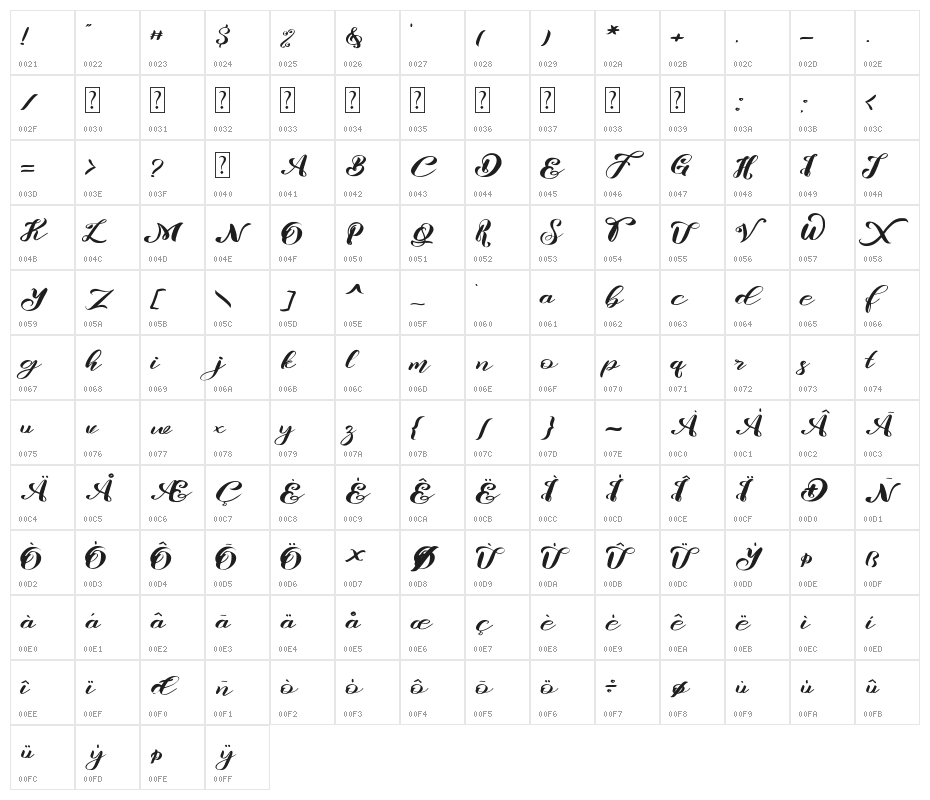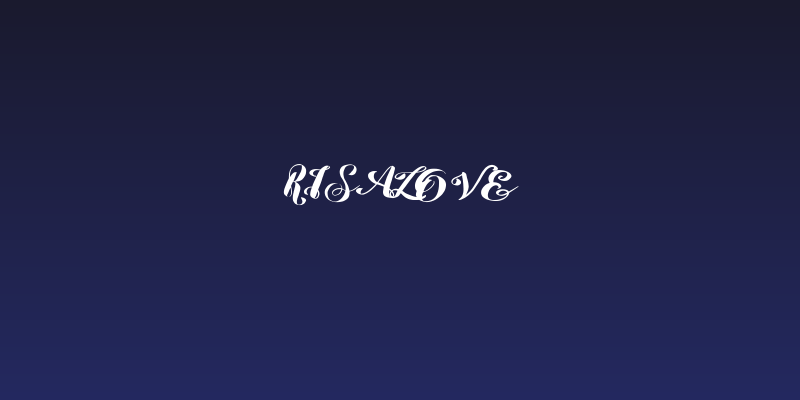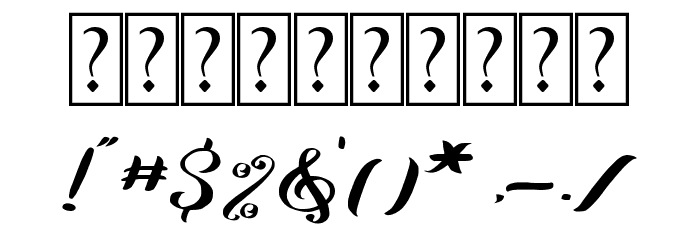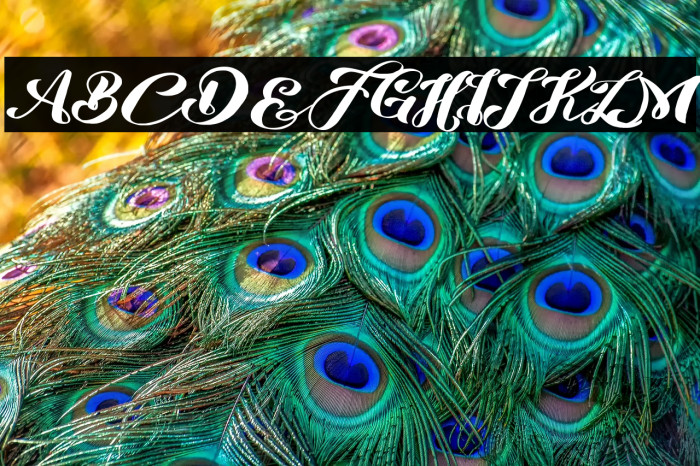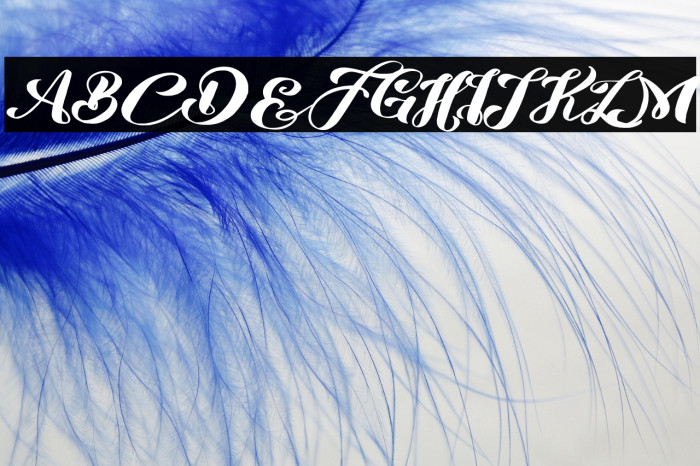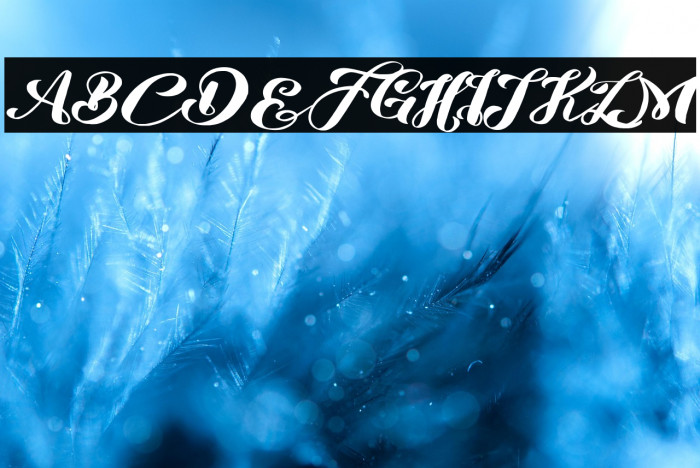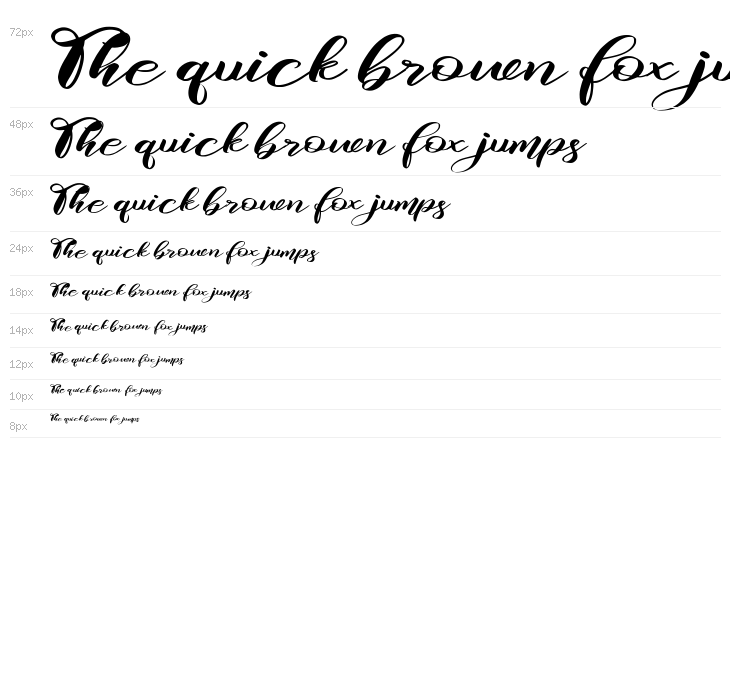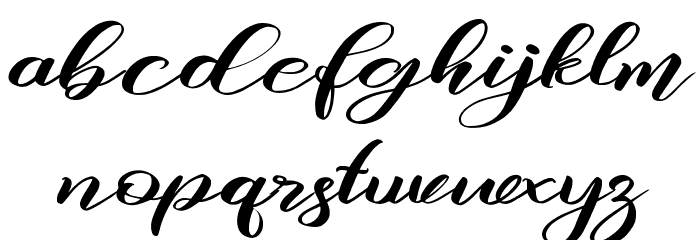
Risalove Font
Risalove Description
This font features an elegant and flowing script style, characterized by its smooth, cursive letterforms. The uppercase letters are ornate with sweeping curves and flourishes, while the lowercase letters maintain a consistent, flowing rhythm. The font exudes a sense of sophistication and grace, making it ideal for formal invitations and branding that requires a touch of elegance. The special characters and punctuation are designed to complement the overall aesthetic, ensuring a cohesive look across all text elements.
| Overall Style | Elegant, Sophisticated |
| Use Case | Headlines, Invitations, Branding |
| Proposed Projects | Ideal for wedding invitations, elegant branding, greeting cards, and luxury product packaging. |